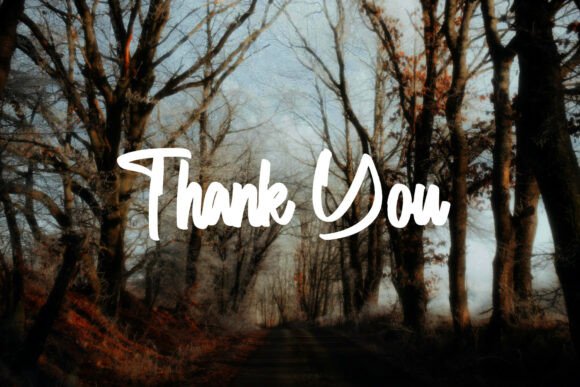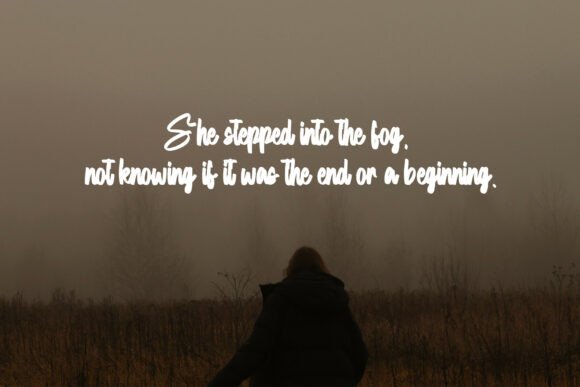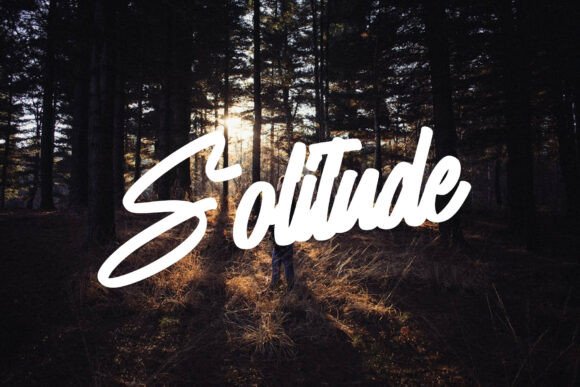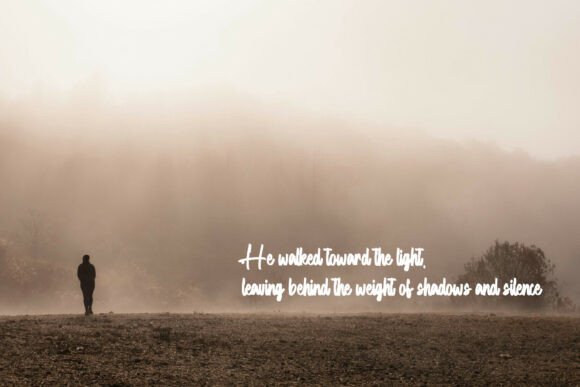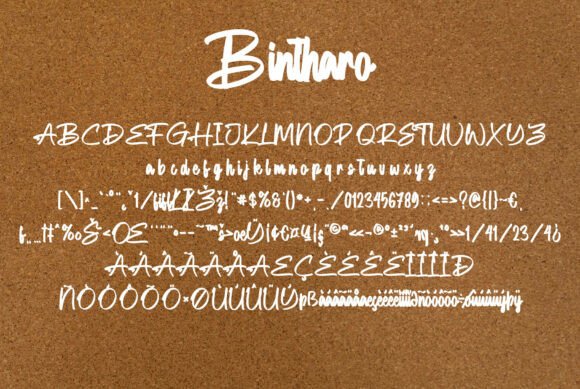
Introducing Bintharo Font: The Ultimate Modern Calligraphy Typeface
In the world of typography, a good font can make all the difference in creating a lasting impression. For designers and crafters looking for a modern and stylish typeface, Bintharo Font is an excellent choice. This striking modern calligraphy font boasts bold brush strokes and effortless flair, making it perfect for adding a touch of authenticity and energy to various design projects.
What is Bintharo Font?
Bintharo Font is a modern calligraphy typeface that combines the elegance of traditional calligraphy with the boldness of modern design. Its expressive, free-flowing style is characterized by bold brush strokes, giving it a unique and eye-catching appearance. This font is designed to bring a touch of sophistication and style to various design projects, including logos, apparel, product packaging, and social media graphics.
Key Features of Bintharo Font
- Bold Brush Strokes: Bintharo Font features bold brush strokes that give it a dynamic and expressive look.
- Effortless Flair: The font’s effortless flair adds a touch of elegance and sophistication to any design project.
- Modern Edge: Bintharo Font brings a modern edge to traditional calligraphy, making it perfect for designers looking for a fresh and stylish typeface.
- Handcrafted Character: The font’s handcrafted character gives it a unique and authentic feel, making it perfect for crafters and designers looking for a personal touch.
Uses of Bintharo Font
Bintharo Font is a versatile typeface that can be used in various design projects, including:
- Logos: Create a lasting impression with a bold and stylish logo that showcases your brand’s personality.
- Apparel: Add a touch of elegance and sophistication to your apparel designs with Bintharo Font.
- Product Packaging: Make your product packaging stand out with a unique and eye-catching typeface.
- Social Media Graphics: Create engaging social media graphics that showcase your brand’s personality and style.
Why Choose Bintharo Font?
Bintharo Font is an excellent choice for designers and crafters looking for a modern and stylish typeface. Here are some reasons why:
- Unique and Eye-Catching: Bintharo Font’s bold brush strokes and effortless flair make it a unique and eye-catching typeface.
- Versatile: The font’s versatility makes it perfect for various design projects, from logos to social media graphics.
- High-Quality: The font is designed to high-quality standards, ensuring that it looks great in any design project.
Tips for Using Bintharo Font
Here are some tips for using Bintharo Font in your design projects:
- Experiment with Different Sizes: Try using Bintharo Font in different sizes to create a unique and eye-catching effect.
- Combine with Other Fonts: Combine Bintharo Font with other fonts to create a unique and stylish typography.
- Use in Combination with Images: Use Bintharo Font in combination with images to create a visually appealing design.
In conclusion, Bintharo Font is a striking modern calligraphy typeface that is perfect for designers and crafters looking for a stylish and versatile font. Its bold brush strokes, effortless flair, and handcrafted character make it a unique and eye-catching typeface that can add a touch of authenticity and energy to various design projects. With its ease of use, high-quality design, and versatility, Bintharo Font is an excellent choice for any design project.